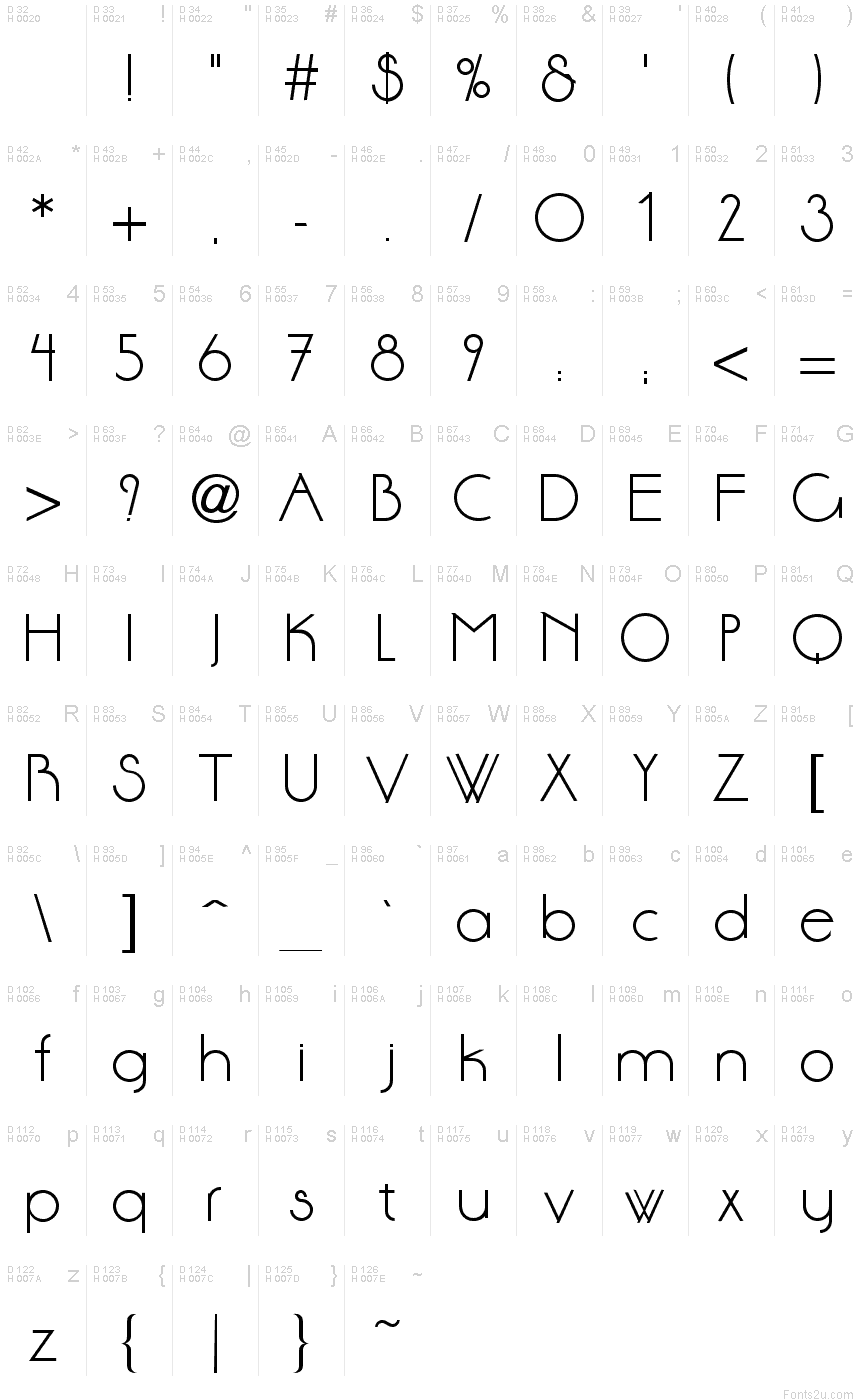
Homey is a free light geometric sans serif with an airy look. Its near-monoline strokes, broad circular forms, and unusually tall verticals make the lettering feel clean and architectural, with rounded turns softening the overall silhouette.
Designers working in minimalist fashion, interiors, or contemporary lifestyle branding could use it for refined packaging, magazine covers, and wordmarks, where the fine strokes support a restrained product image. The slim construction also suits gallery posters and cultural event graphics, especially projects built around modernist photography, uncluttered geometry, or a quiet editorial style.